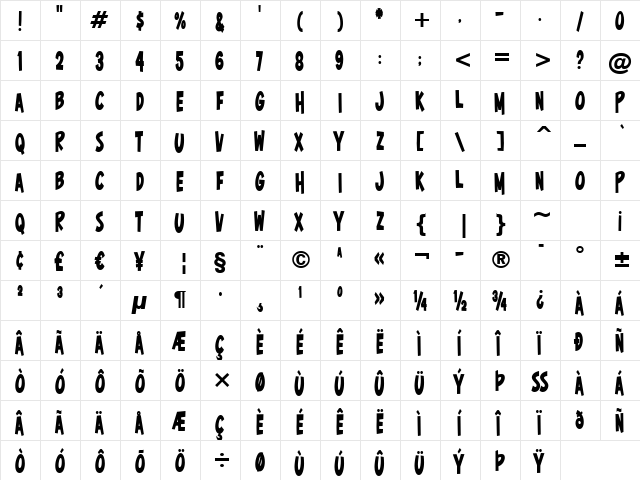
Surfer Shop BTN Cond Bold
Design Context for Surfer Shop BTN Cond Typeface
Surfer Shop BTN Cond is a composed and adaptable typeface that performs quietly and consistently across a wide range of design contexts. Its bold stroke weight gives it real presence on the page. Its narrow stance lets it pack a punch even in space-constrained designs.
Pro Tip: Use Surfer Shop BTN Cond in both headline and body roles to test its range before committing to a single application.